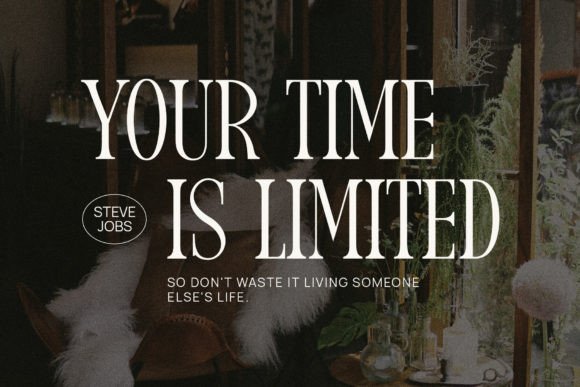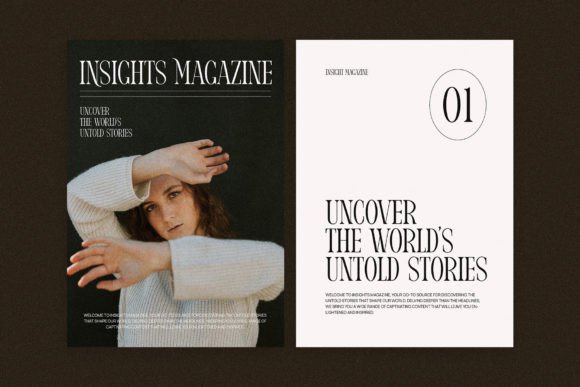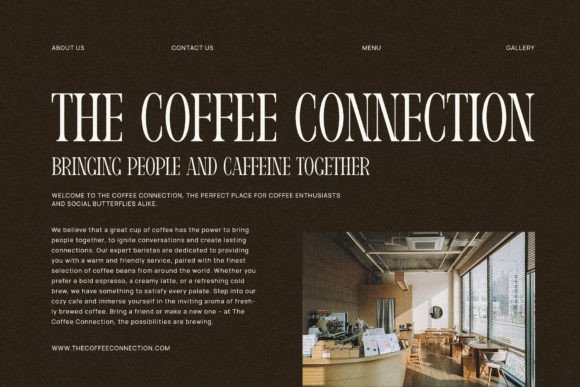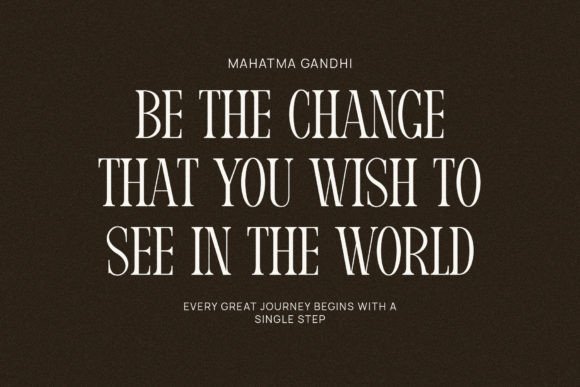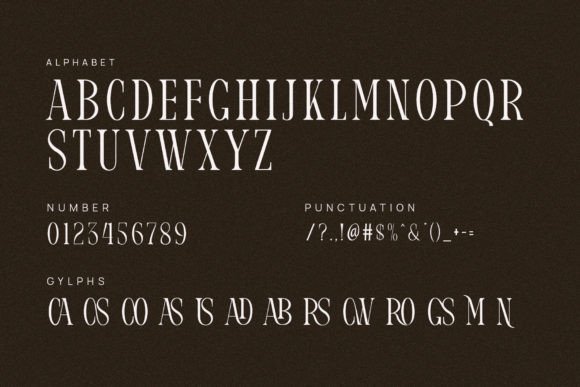
Introduction to Misadon Font
Have you ever stared at a blank canvas, feeling the creative juices flowing but struggling to find the perfect font to bring your vision to life? That’s exactly where I was when I discovered the elegant Misadon Font. Its classy and modern style instantly captivated me, and I knew I had to dive deeper to explore its potential.
As a designer, I understand the importance of having a versatile and high-quality design resource like Misadon Font. With its ability to elevate various projects such as branding, logos, and social media posts, this font is a game-changer. Plus, its PUA encoding allows for easy access to all the amazing glyphs and ligatures, making it a breeze to create stunning designs with a transparent background.
Whether you’re working on a free download project or a high-end creative endeavor, Misadon Font is sure to be a valuable addition to your design arsenal. Its high level of readability and stylish aesthetic make it the perfect choice for designers looking to take their projects to the next level.
Key Features of Misadon Font
- High-quality design resource for creative projects, ideal for digital art and graphics.
- Features a transparent background, allowing for easy layering and manipulation in design applications.
- Designed with a unique aesthetic, the Misadon Font is perfect for adding a touch of whimsy to any creative project.
Honest Review: Misadon Font
As a designer, I’m always on the lookout for new and exciting design resources to elevate my creative projects. Recently, I stumbled upon the Misadon Font and was eager to put it to the test.
First impressions: the font is incredibly easy to download and install, making it a great addition to my design library. The high quality of the font is immediately apparent, with crisp lines and a clean aesthetic that’s perfect for modern designs.
What works well: ✨ The font is highly versatile, with a range of weights and styles that make it suitable for a variety of creative projects, from logos and branding to editorial and web design. I particularly love the transparent background option, which allows for seamless integration with other design elements.
Limitations: ⚠️ While the font is overall impressive, I did find that it’s not as extensive as some other fonts in its price range. The character set is a bit limited, and I had to get creative with some of my more complex designs.
Overall impression: I’m really impressed with the Misadon Font, and I think it’s a great addition to any designer’s toolkit. While it may not be perfect, its strengths far outweigh its limitations, making it a solid choice for any creative project.
Pros:
- High quality and clean aesthetic
- Highly versatile
Cons:
- Limited character set
- Not as extensive as some other fonts
Tips for Getting the Most Out of Misadon Font
To maximize the effectiveness of the Misadon Font, use it in conjunction with high-quality images and graphics. Experiment with different font sizes, colors, and arrangements to create visually appealing designs. Additionally, consider pairing the Misadon Font with other creative fonts to add depth and interest to your project.
Common Use Cases for Misadon Font
The Misadon Font is suitable for a wide range of creative projects, including logos, brochures, social media graphics, and presentations. Its unique design and transparent background make it an excellent choice for designing eye-catching graphics that stand out from the crowd.